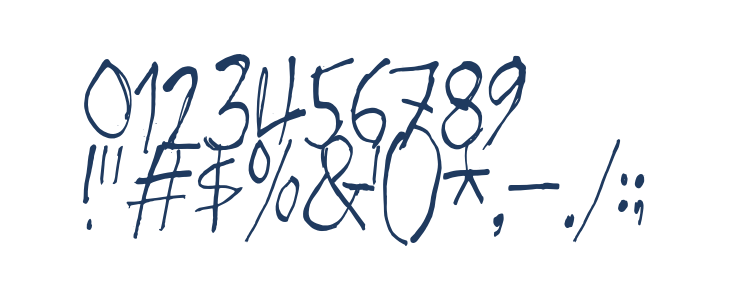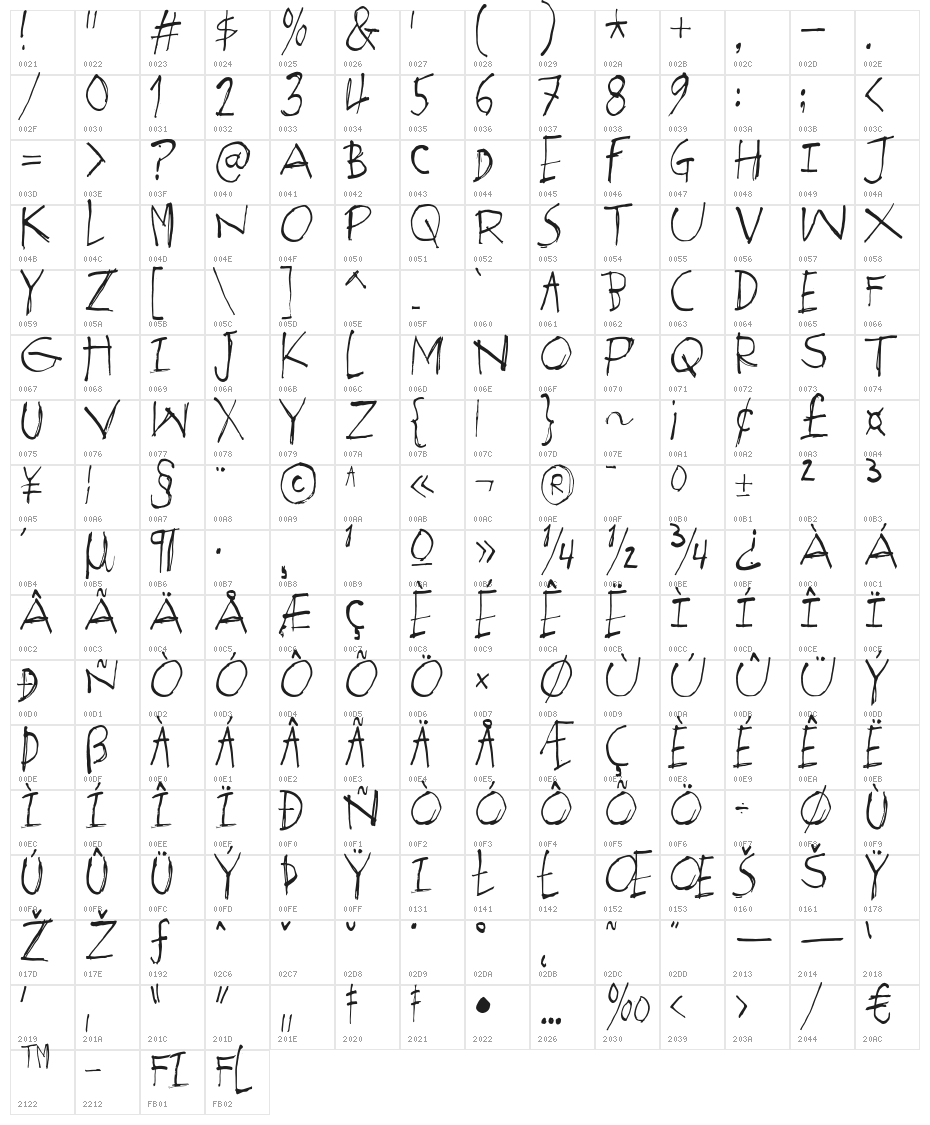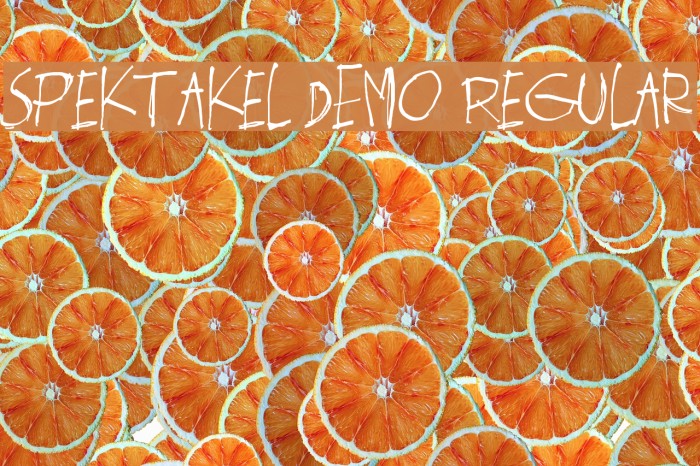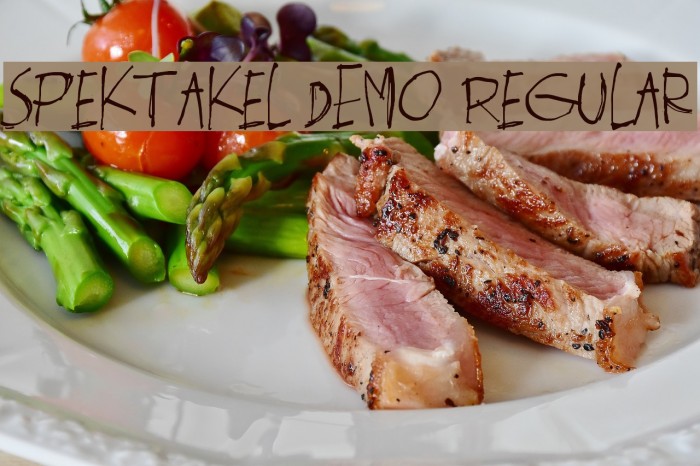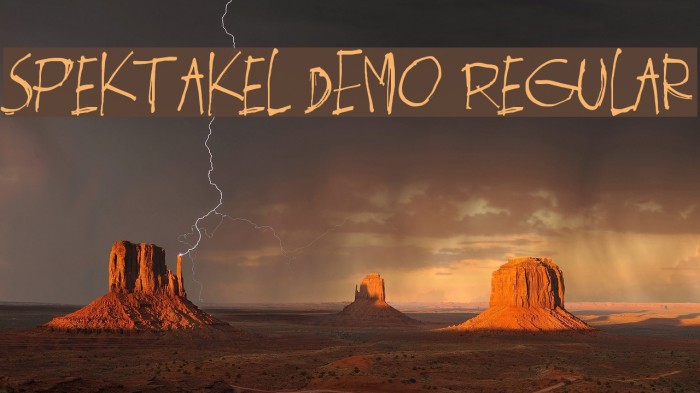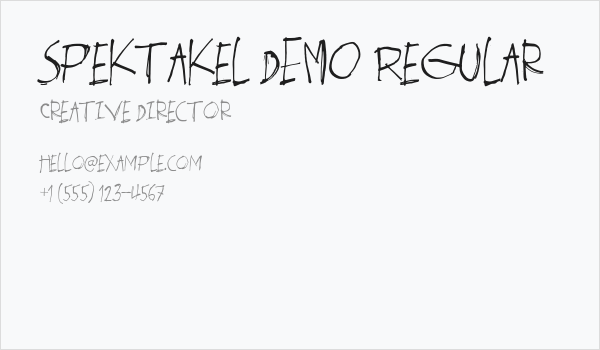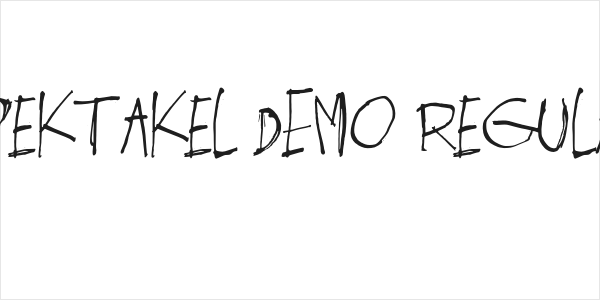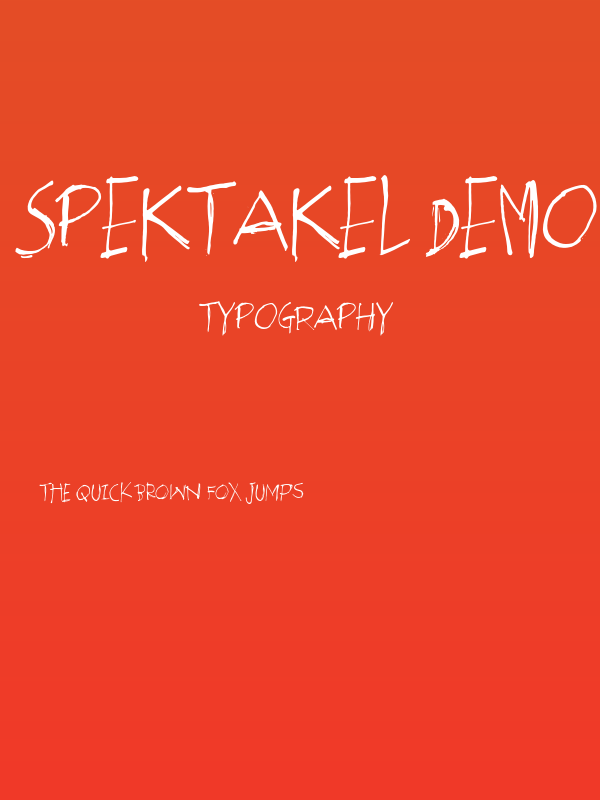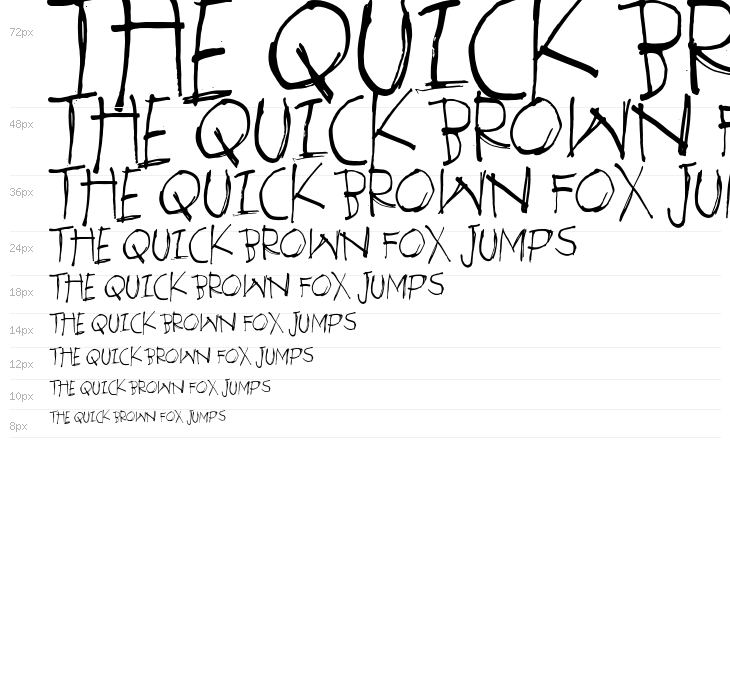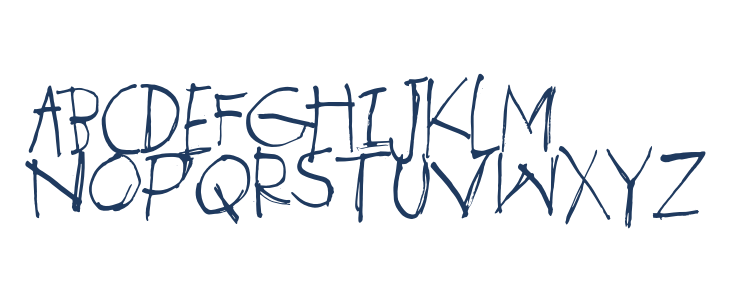
Spektakel DEMO Regular Font
Spektakel DEMO Regular Description
This font exhibits a dynamic and expressive handwritten style, characterized by its irregular and bold strokes. The letters have a raw, energetic feel, with varying thickness that gives it a lively and spontaneous appearance. The uppercase and lowercase letters maintain a consistent style, while the numbers and special characters complement the overall aesthetic. The font's unique personality makes it stand out, with a slightly chaotic yet artistic vibe that captures attention.